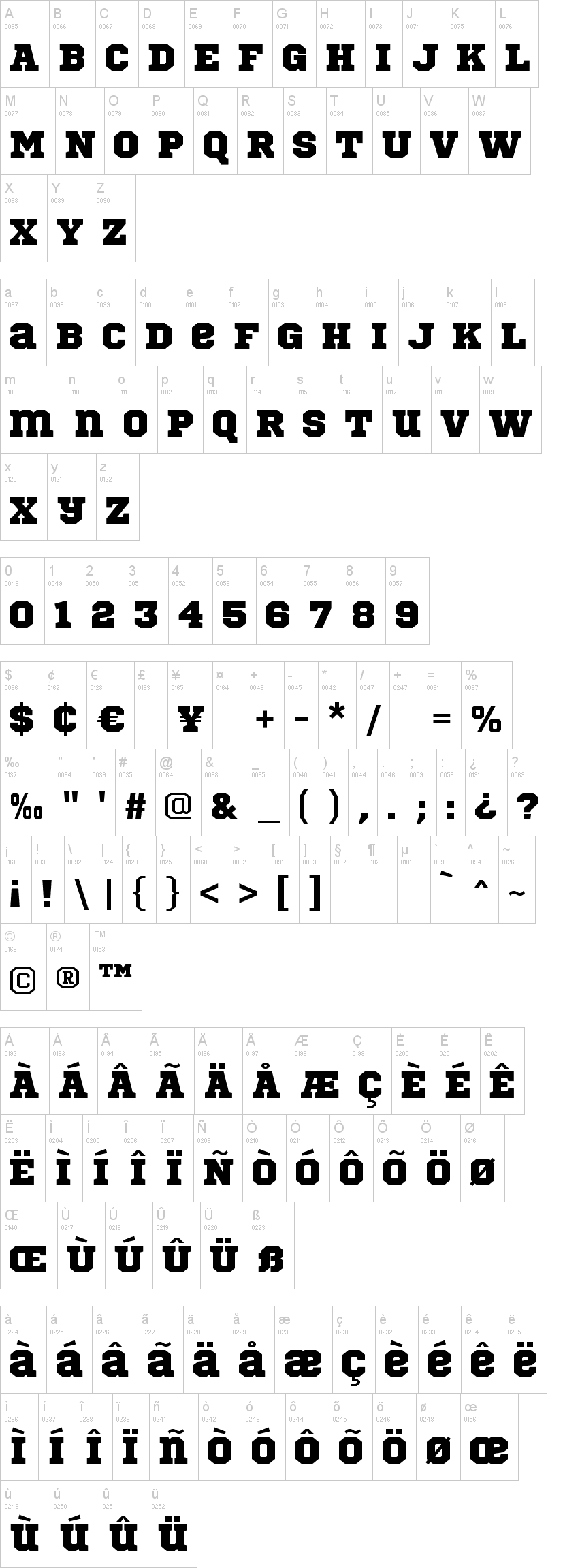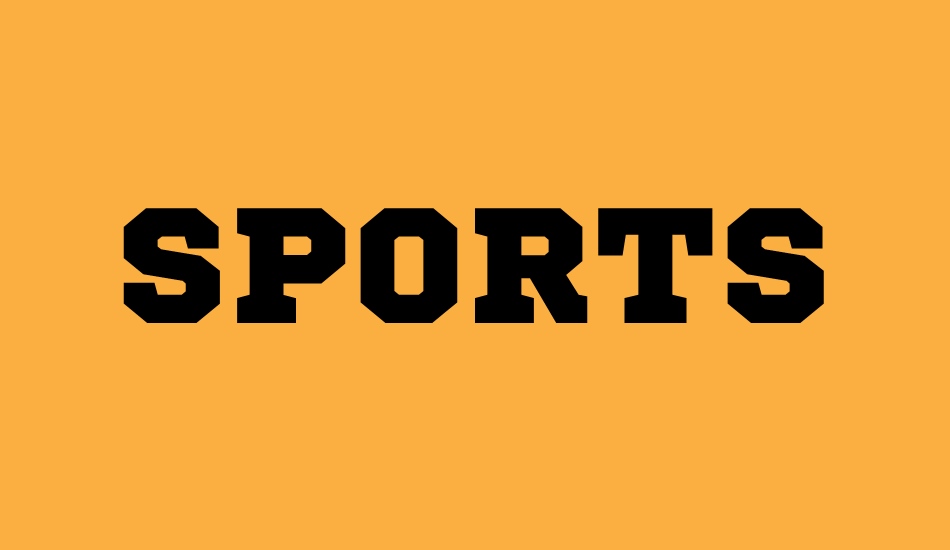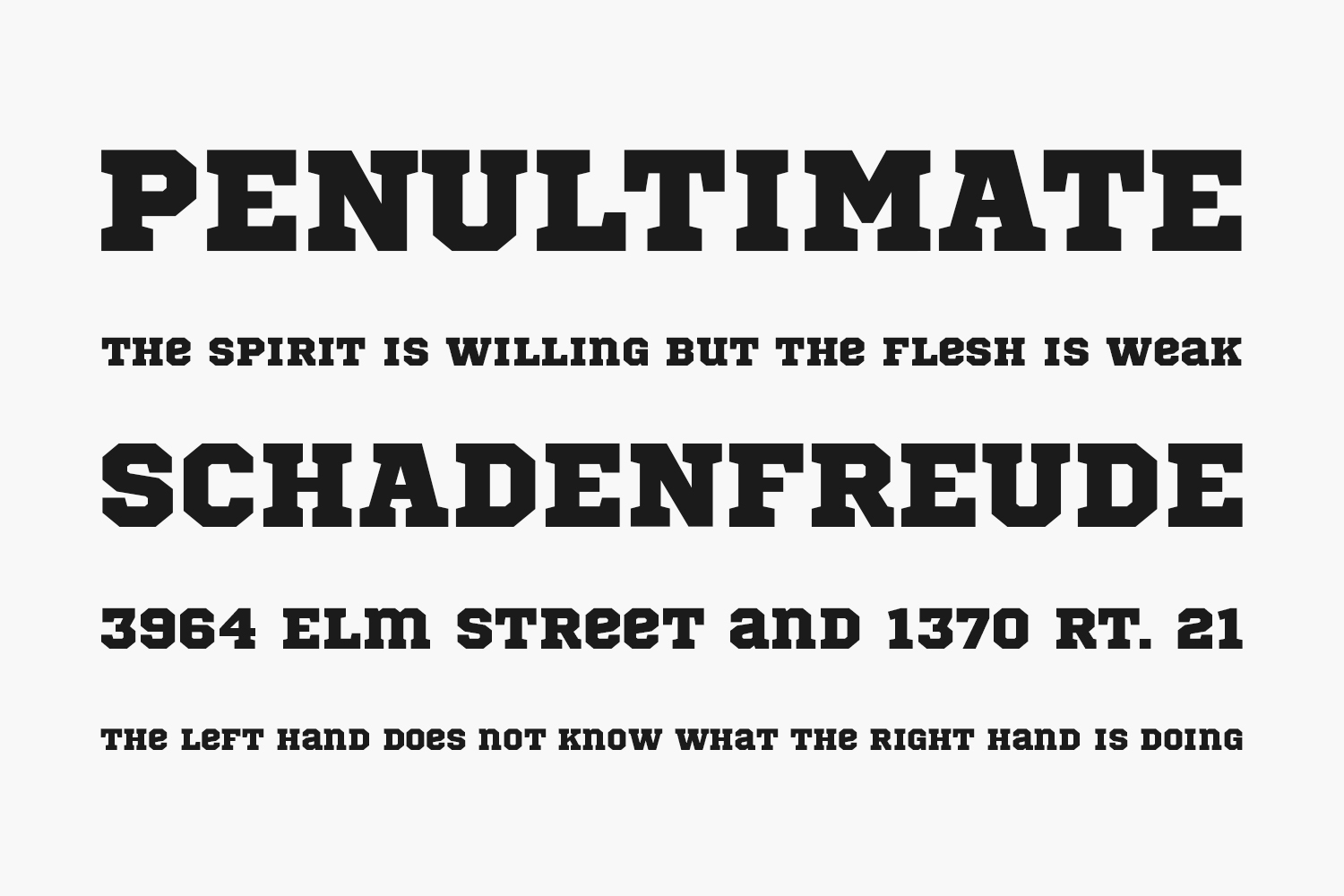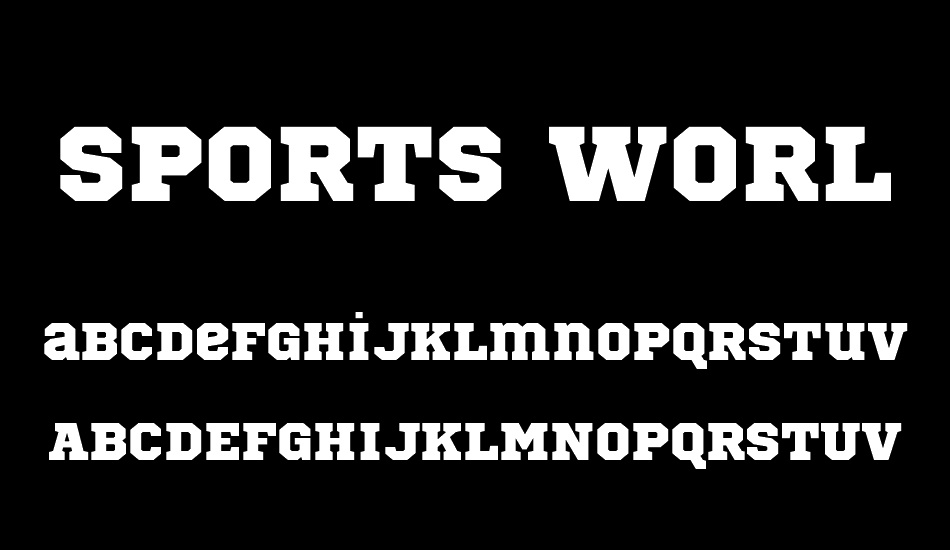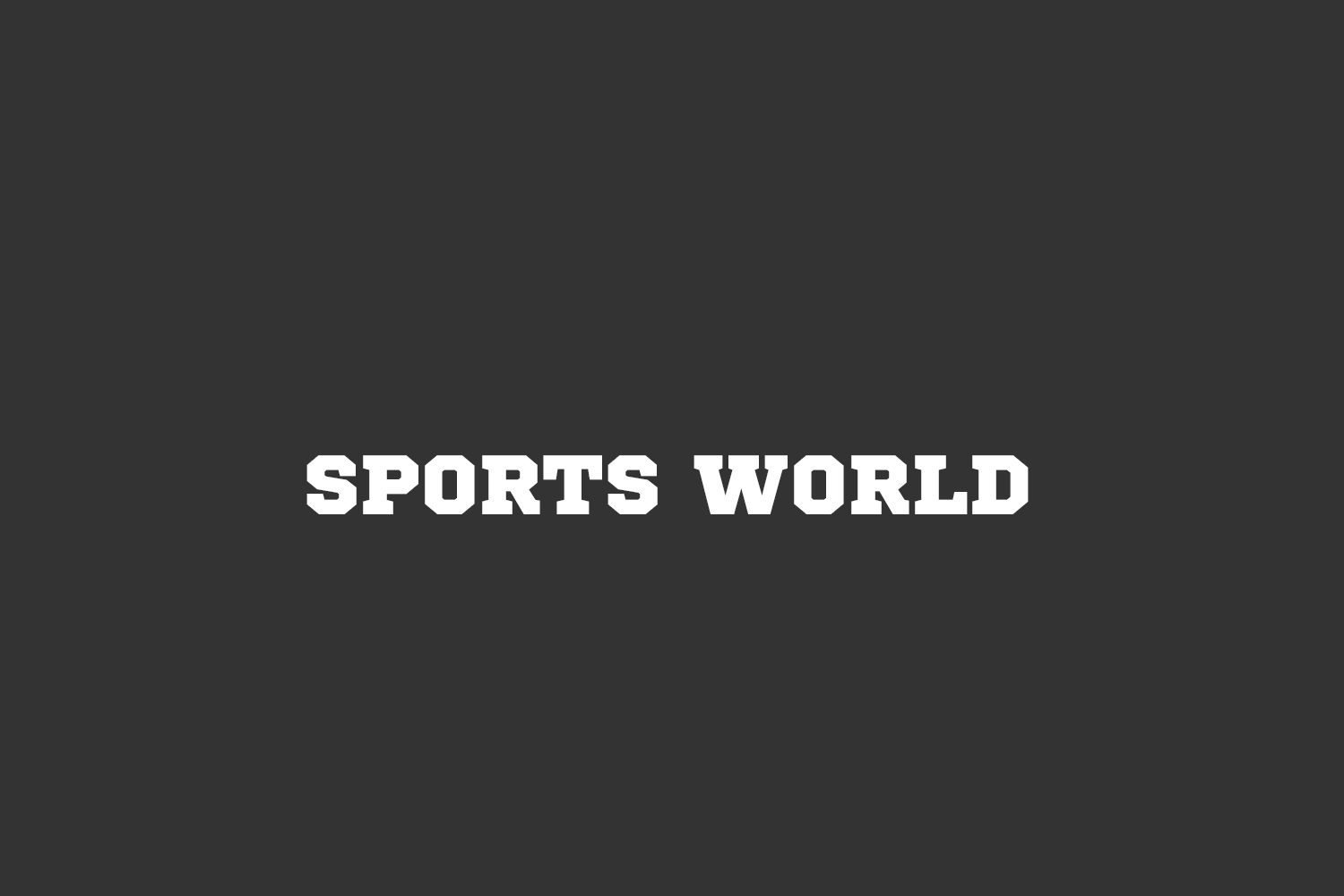
Font Sports World
Font Sports World - Web sports world font download is available free from fontget. Sports world is a free font for commercial use created by sergiy s. Click to find the best 741 free fonts in the sports style. Every font is free to download! Web elevate your brand with the perfect font for your sports project! Web sports world designed by sergiy tkachenko is a heavy slab serif designed for sportbettingspot.
Web elevate your brand with the perfect font for your sports project! Web sports world designed by sergiy tkachenko is a heavy slab serif designed for sportbettingspot. Web sports world font download is available free from fontget. Every font is free to download! Click to find the best 741 free fonts in the sports style. Sports world is a free font for commercial use created by sergiy s.
Click to find the best 741 free fonts in the sports style. Web sports world font download is available free from fontget. Sports world is a free font for commercial use created by sergiy s. Every font is free to download! Web elevate your brand with the perfect font for your sports project! Web sports world designed by sergiy tkachenko is a heavy slab serif designed for sportbettingspot.
Click to find the best 741 free fonts in the sports style. Every font is free to download! Web sports world designed by sergiy tkachenko is a heavy slab serif designed for sportbettingspot. Web sports world font download is available free from fontget. Web elevate your brand with the perfect font for your sports project!
Sports World Font
Web elevate your brand with the perfect font for your sports project! Click to find the best 741 free fonts in the sports style. Web sports world designed by sergiy tkachenko is a heavy slab serif designed for sportbettingspot. Sports world is a free font for commercial use created by sergiy s. Web sports world font download is available free.
Web sports world font download is available free from fontget. Web elevate your brand with the perfect font for your sports project! Click to find the best 741 free fonts in the sports style. Sports world is a free font for commercial use created by sergiy s. Every font is free to download!
Web sports world font download is available free from fontget. Web elevate your brand with the perfect font for your sports project! Click to find the best 741 free fonts in the sports style. Web sports world designed by sergiy tkachenko is a heavy slab serif designed for sportbettingspot. Sports world is a free font for commercial use created by.
Sports World Fonts Shmonts
Click to find the best 741 free fonts in the sports style. Every font is free to download! Web elevate your brand with the perfect font for your sports project! Web sports world font download is available free from fontget. Web sports world designed by sergiy tkachenko is a heavy slab serif designed for sportbettingspot.
Click to find the best 741 free fonts in the sports style. Every font is free to download! Web elevate your brand with the perfect font for your sports project! Sports world is a free font for commercial use created by sergiy s. Web sports world designed by sergiy tkachenko is a heavy slab serif designed for sportbettingspot.
Web sports world font download is available free from fontget. Web elevate your brand with the perfect font for your sports project! Web sports world designed by sergiy tkachenko is a heavy slab serif designed for sportbettingspot. Sports world is a free font for commercial use created by sergiy s. Click to find the best 741 free fonts in the.
Sports World Font Download
Web sports world font download is available free from fontget. Web elevate your brand with the perfect font for your sports project! Click to find the best 741 free fonts in the sports style. Sports world is a free font for commercial use created by sergiy s. Every font is free to download!
Sports World font download
Click to find the best 741 free fonts in the sports style. Sports world is a free font for commercial use created by sergiy s. Web sports world font download is available free from fontget. Every font is free to download! Web elevate your brand with the perfect font for your sports project!
Sports World Fonts Shmonts
Web sports world designed by sergiy tkachenko is a heavy slab serif designed for sportbettingspot. Web elevate your brand with the perfect font for your sports project! Every font is free to download! Click to find the best 741 free fonts in the sports style. Web sports world font download is available free from fontget.
Sports world is a free font for commercial use created by sergiy s. Web elevate your brand with the perfect font for your sports project! Web sports world designed by sergiy tkachenko is a heavy slab serif designed for sportbettingspot. Web sports world font download is available free from fontget.